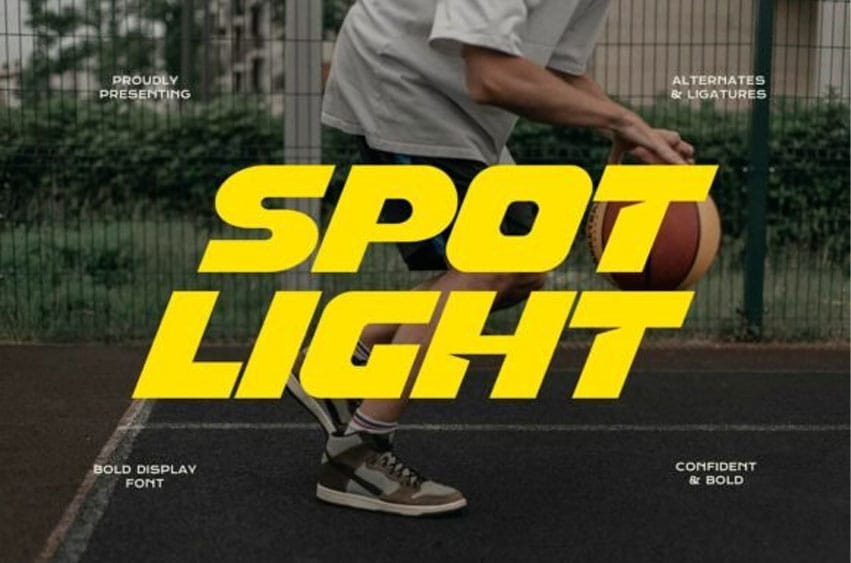
Spot Light Font is a bold, dynamic, and sporty display typeface that exudes energy and movement. Its thick, slanted characters with sharp edges and angular cuts convey a sense of speed, confidence, and modernity, making it ideal for headlines and branding that demand attention.
Spot Light it’s perfect for active lifestyle themes such as sports events, streetwear, skateboarding contests, fast car racing sports titles, running matches, cycling, automotive game logos, posters, jersey design, sport slogans, any writing which needs a strong, bold vibe, and any type of advertising purpose.